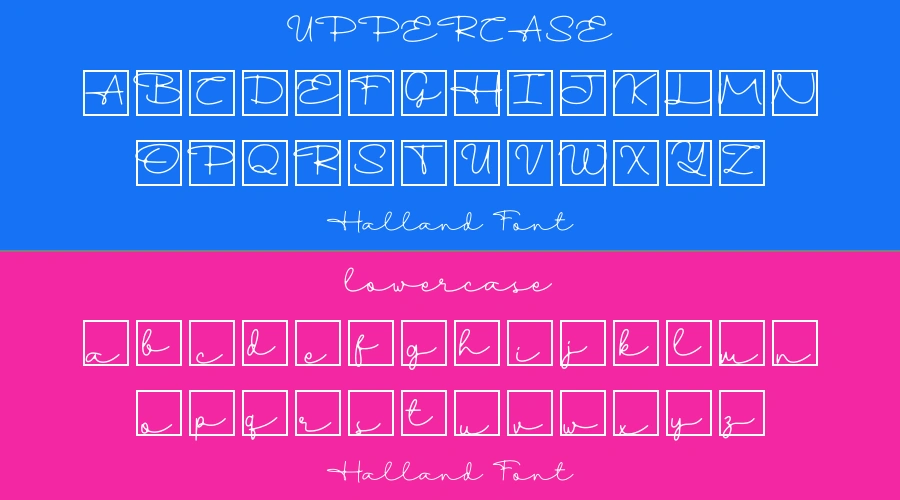
About Halland Font
Designed with precision, Halland Font merges high x-height with technical accuracy in every character. This versatility makes it particularly effective for engineering drawings, where consistency and artistic value directly impact communication quality. Each letterform demonstrates meticulous craftsmanship.
Technical excellence shines through elements like tapered strokes and mid-word alternates, enhancing typographic versatility. In image captions settings, Halland Font proves its worth through superior color application. The thoughtful execution of joint detail and design heritage ensures professional results.